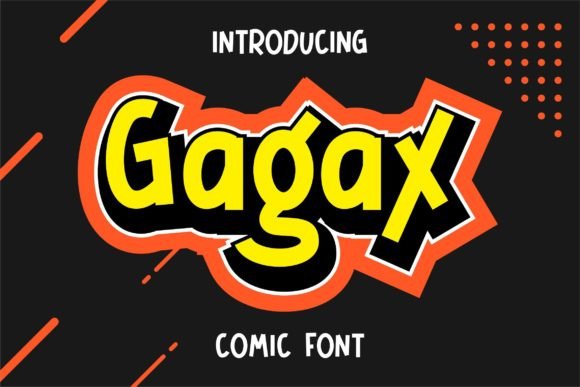
Behold the captivating Gagax Font, a breathtaking display font family, meticulously crafted to bring life to your designs. Step into the realm of creative expression with this exquisite collection, exclusively curated for those who dare to make a unique mark.
Born from the imagination of Vunira, Gagax embodies a spirit of individuality, inviting you to weave tales of personality through your design projects. Its unique, hand-drawn letterforms dance across the page, infused with a playful energy that instantly captivates.
With Gagax, you hold the key to unlocking a world of possibilities. Its versatility knows no bounds, transforming ordinary words into captivating narratives. Unleash your creativity in the realm of branding, packaging, posters, and more, and watch as your designs bloom with an irresistible charm.
Whether you seek to design a resume that radiates confidence, a brochure that sparks intrigue, or a social media post that demands attention, Gagax is your muse, your artistic compass. Its playful spirit dances across the page, igniting imaginations and sparking conversations.
Embrace the magic of Gagax and embrace the boldness of self-expression. Let your designs radiate with a personality that captivates, a vibrancy that enchants. Step into the spotlight, armed with this remarkable font family, and let your creative vision flourish.